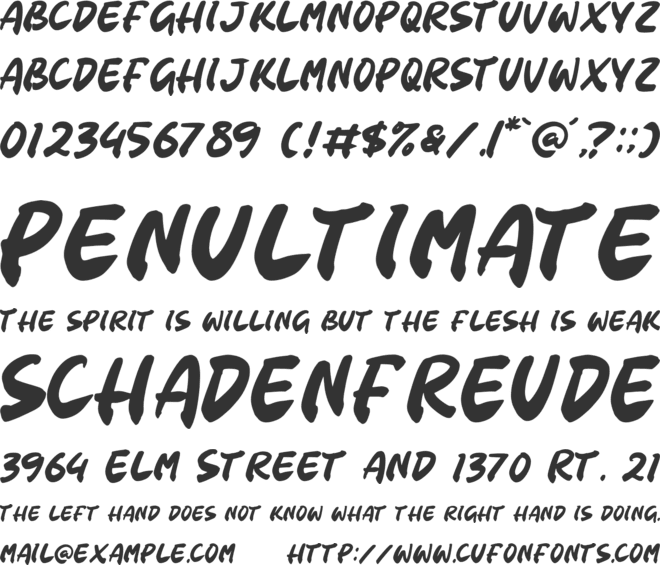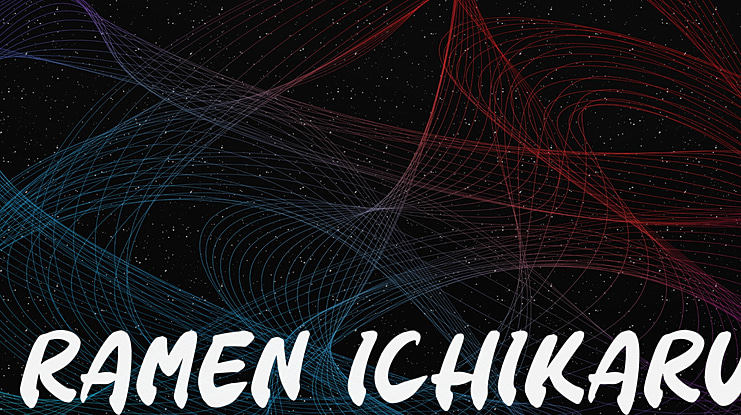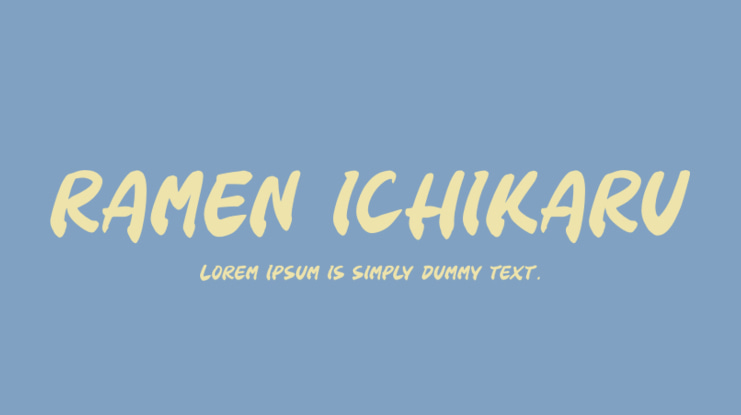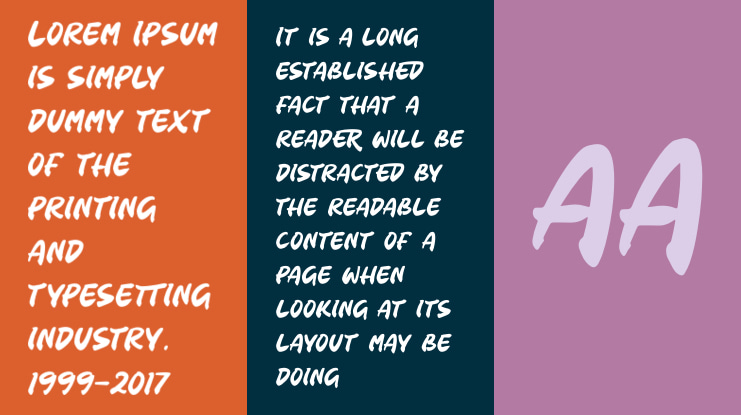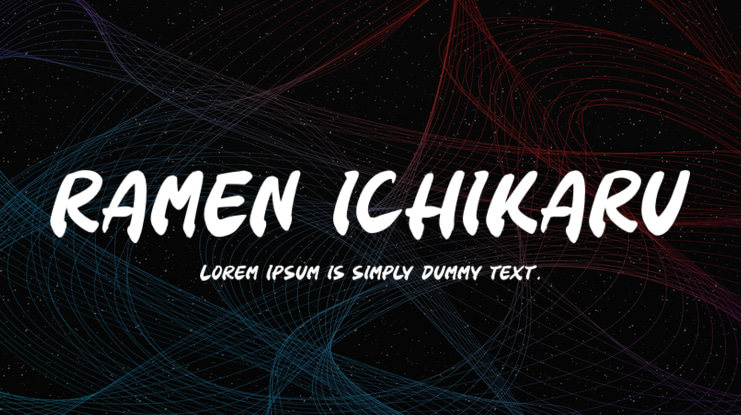
It’s bold brush display font, suitable for any projects such as: logos, branding projects, homeware designs, product packaging, mugs, quotes, posters, shopping bags, t-shirts, book covers, name card, invitation cards, greeting cards, label, photography, watermark, special events, and all your other lovely projects that need a beautiful script taste.